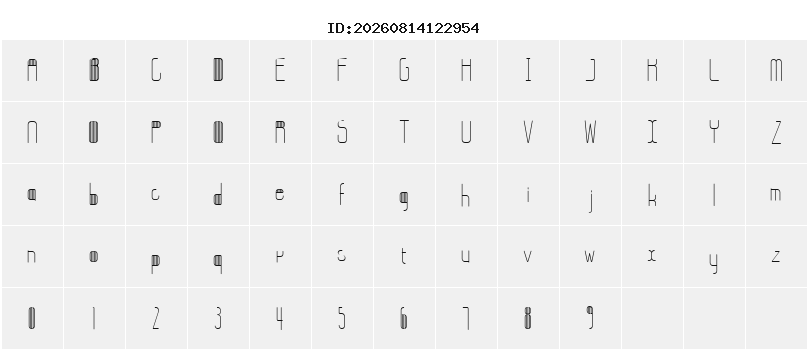
Stripes Preview
• Font Name: Stripes
• Full Font Name: Stripes Regular
About Stripes.ttf
Stripes.ttf is a modern, elegant sans-serif font designed for ultimate readability and visual harmony. Perfect for branding, headlines, web design, and print materials.